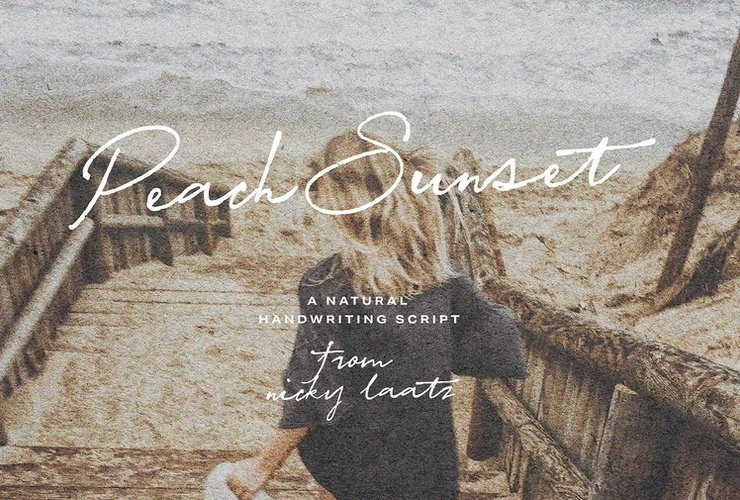
Peach Sunset Script: A Chic and Casual Handwriting Typeface
Peach Sunset Script is an elegant and laid-back handwritten font that captures the essence of chic, natural handwriting. Designed to mimic realistic penmanship, this typeface offers a versatile and stylish option for a variety of design projects. Whether you’re creating logos, invitations, social media graphics, or branding materials, Peach Sunset Script adds a touch of personal flair and sophistication.
Key Features of Peach Sunset Script
Peach Sunset Script stands out with its full set of alternate characters for both uppercase and lowercase letters, allowing designers to mix and match to achieve a more authentic handwritten look. Additionally, it includes a selection of common OpenType ligatures, providing unique double letter combinations as you type. This feature enhances the natural flow and appearance of the script.
The font comes in three delightful variations, each offering a distinct feel to the handwriting:
NL Peach Sunset Script One: Original flat height, perfect for a classic handwritten look.
NL Peach Sunset Script Two: A slightly taller height for a more elongated and elegant style.
NL Peach Sunset Script Three: The tallest version, ideal for making a bold statement.
In addition to these features, Peach Sunset Script includes a charming selection of underlines, hearts, and other decorative elements to further personalize your designs.
Explore Peach Sunset Script and discover how this chic, casual font can elevate your creative projects with its realistic and stylish handwritten appeal.